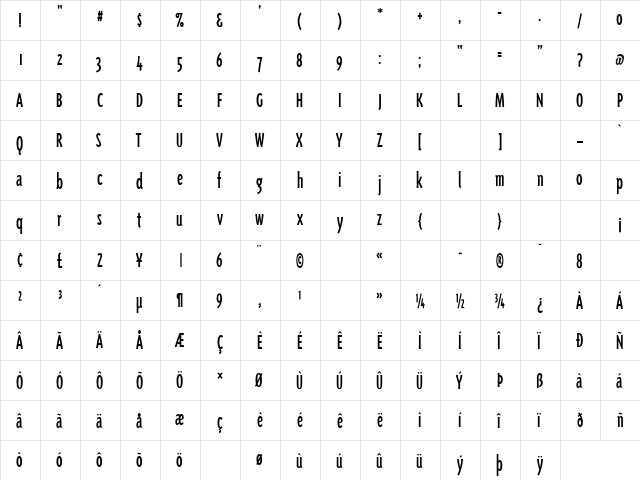
TriplexCond Roman
Design Context for TriplexCond Typeface
TriplexCond takes a measured approach to typography — its balanced proportions and neutral character make it a reliable workhorse for both digital and print work. The condensed width makes it efficient for tight spaces without sacrificing legibility.